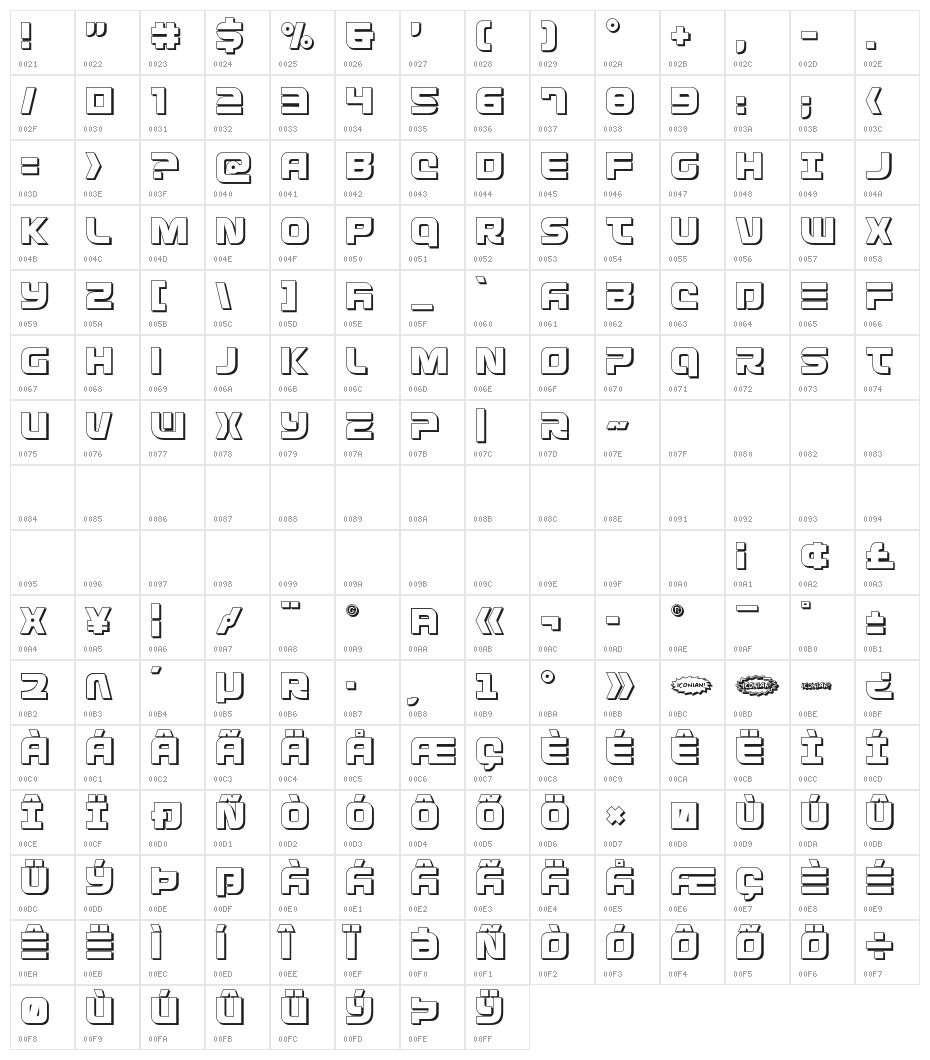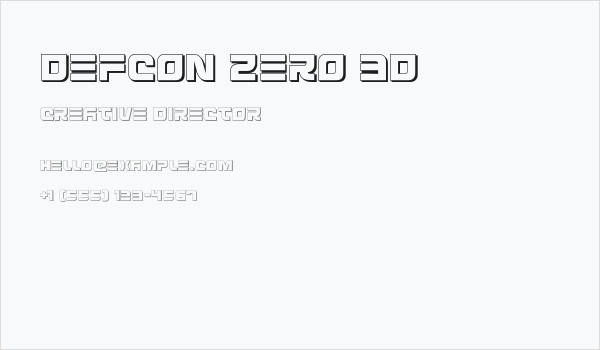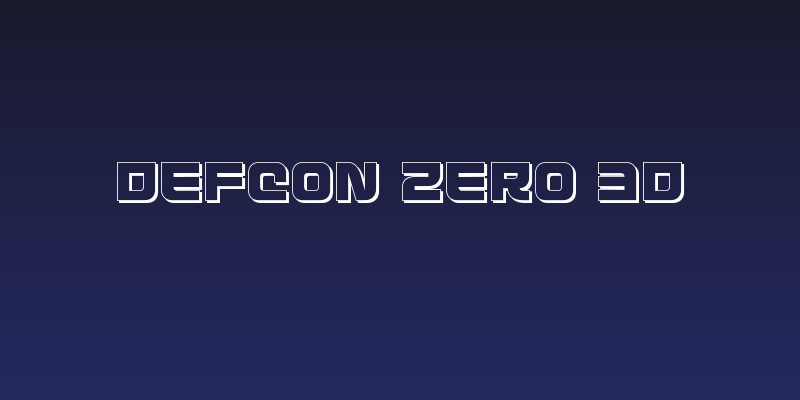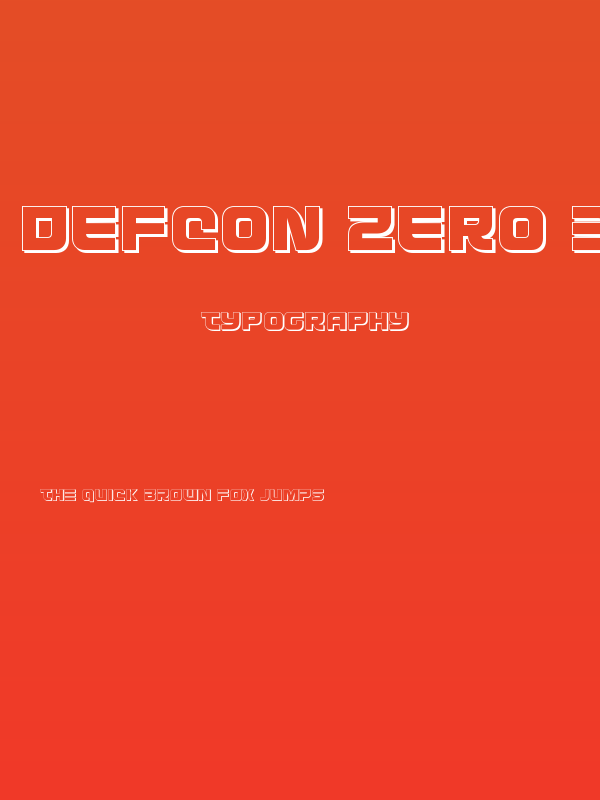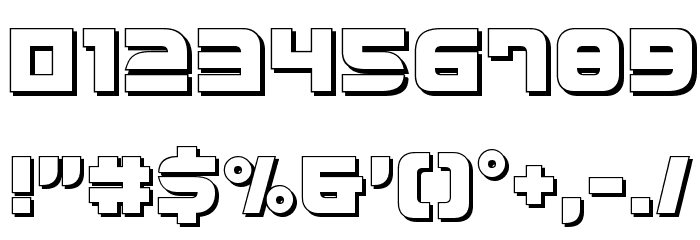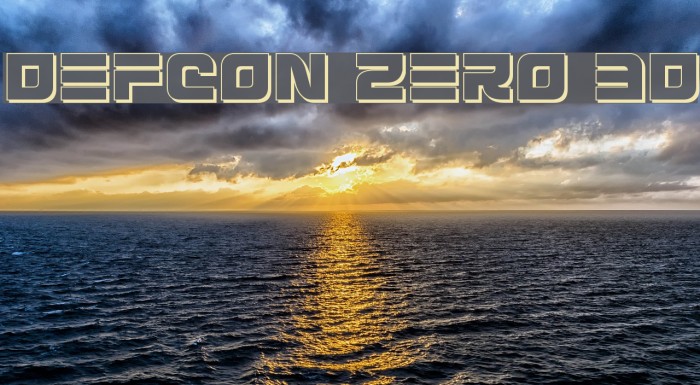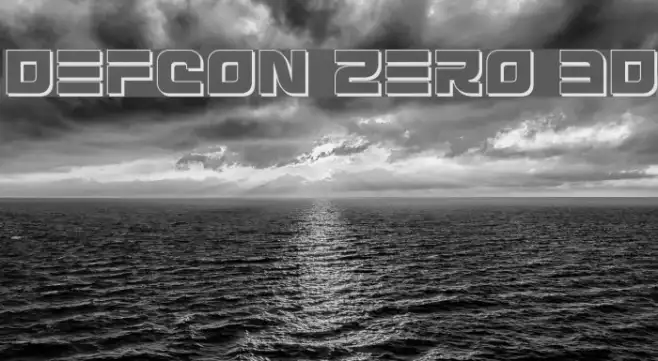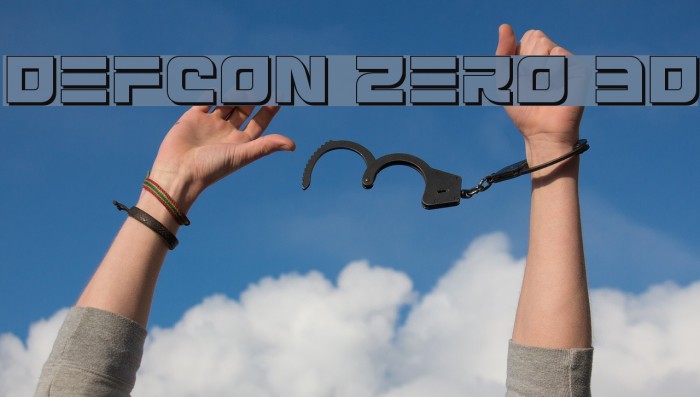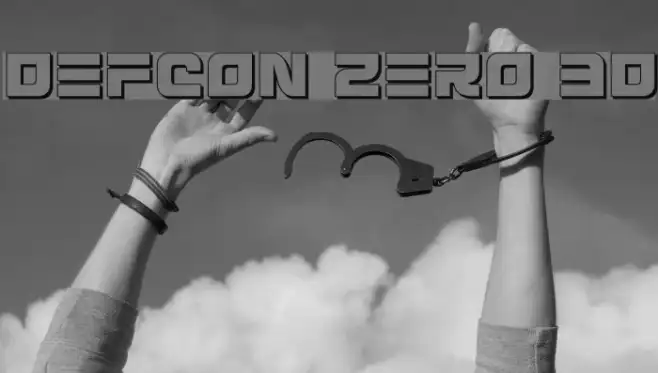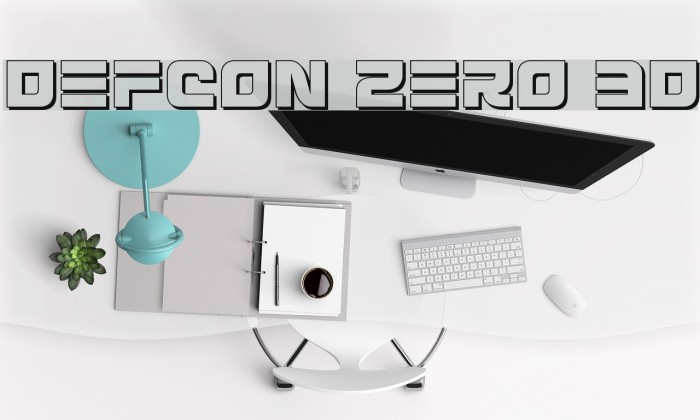
Defcon Zero 3D Font
Defcon Zero 3D Description
This font features a bold, three-dimensional design with a futuristic and industrial feel. Each character is outlined with a thick border, creating a striking visual effect that adds depth and dimension. The geometric shapes and sharp angles give it a modern and edgy appearance, making it stand out in any design project. The uppercase and lowercase letters maintain a consistent style, while the numerals and special characters complement the overall aesthetic. Its unique style is perfect for grabbing attention and making a statement.
| Proposed Projects | Ideal for video game titles, tech-themed posters, sci-fi book covers, and branding for innovative products. |